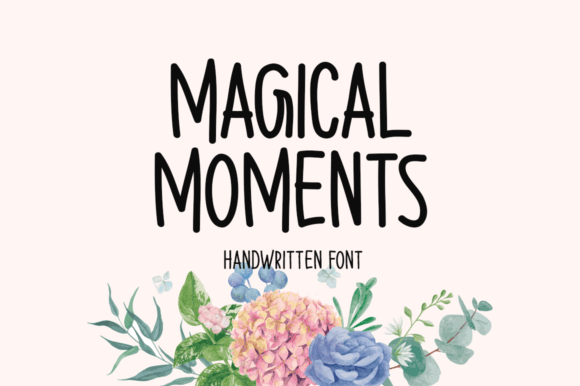
Magical Moments Font: Elevate Your Brand with a Touch of Whimsy
In the world of branding and design, fonts play a pivotal role in conveying the essence and personality of a brand. Among the myriad of typefaces available, the Magical Moments Font stands out as a beacon of creativity and charm. This fresh, handwritten typeface is not just a font; it’s an experience. It’s designed to add a touch of magic to your brand’s visual identity, making it perfect for a wide array of applications, from stationery and logos to t-shirts, print design, website headers, photo frames, flyers, music covers, posters, image sliders, and more.
What Makes Magical Moments Font Special?
- Unique and Handwritten: The Magical Moments Font is crafted with love and care, offering a unique, handwritten look that sets your brand apart from the crowd.
- Versatile: Its versatility is one of its most compelling features. Whether you’re designing for digital platforms or print, this font adapts beautifully, ensuring your message looks great everywhere.
- Easy to Read: Despite its whimsical nature, the Magical Moments Font maintains excellent readability, making it perfect for both headings and body text.
- Customizable: With a range of styles and ligatures, you can customize the font to fit your brand’s tone and personality.
Creative Applications of Magical Moments Font
The Magical Moments Font is incredibly versatile, making it suitable for a variety of design projects. Here are some of the most popular applications:
- Stationery: Elevate your brand’s stationery, including business cards, letterheads, and invoices, with a touch of elegance and whimsy.
- Logos: Create a memorable logo that captures the essence of your brand. The handwritten nature of the Magical Moments Font adds a personal touch that can make your logo stand out.
- T-Shirts and Merchandise: Design stunning apparel and merchandise. The font’s clear and readable style ensures your message looks great on both casual and professional wear.
- Print Design: From brochures and catalogs to posters and flyers, add a professional yet creative edge to your print materials.
- Website Headers: Make a great first impression with captivating website headers. The Magical Moments Font can help set the tone for your website’s content.
- Photo Frames and Art: Add captions or quotes to your photo frames and art pieces with a font that complements the visual elements beautifully.
- Music Covers and Posters: For musicians and event organizers, the Magical Moments Font can add a creative and appealing look to music covers and event posters.
- Image Sliders and Presentations: Enhance your digital presentations and image sliders with a font that is both engaging and easy to read.
Tips for Using Magical Moments Font Effectively
To maximize the impact of the Magical Moments Font, consider the following tips:
- Mix and Match: Don’t be afraid to experiment with different font sizes, styles, and colors. The Magical Moments Font pairs well with both serif and sans-serif fonts.
- Consider Your Audience: Ensure the whimsical nature of the font aligns with your brand’s message and appeals to your target audience.
- Use Ligatures: Take advantage of the font’s ligatures to add a natural, handwritten feel to your text.
- Test Readability: Always test the font’s readability across different devices and print materials to ensure your message is conveyed clearly.
Finding Inspiration with Magical Moments Font
The Magical Moments Font is more than just a typeface; it’s a tool for creativity. Here are some ways to find inspiration for your projects:
- Explore Design Trends: Keep an eye on current design trends and see how you can incorporate the Magical Moments Font into your projects.
- Draw from Nature: The organic feel of the font lends itself well to nature-inspired designs. Consider elements like flowers, landscapes, or wildlife.
- Play with Colors: The right color palette can enhance the beauty of the Magical Moments Font. Experiment with pastel colors, vibrant hues, or monochromatic schemes.
The Magical Moments Font offers a fresh and exciting way to breathe life into your brand’s visual identity. Its unique blend of whimsy and readability makes it an excellent choice for designers looking to add a personal touch to their work. Whether you’re crafting a brand’s first impression or looking to revamp your image, this font is sure to inspire creativity and captivate your audience. So, why settle for ordinary when you can create something magical?